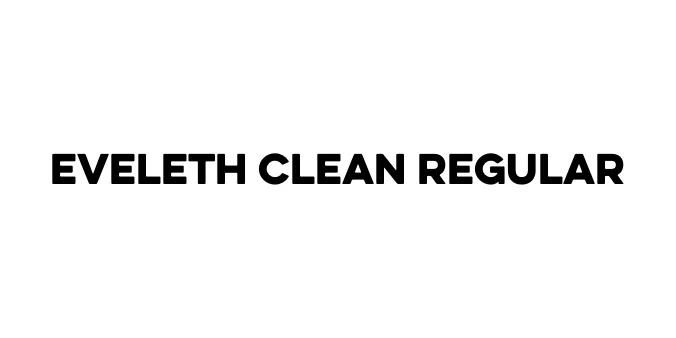
Eveleth Clean Regular
Designed by Ryan Martinson
Eveleth Clean Regular is a polished and refined version of the high-resolution letterpress font family created by Ryan Martinson of Yellow Design Studio. While the original Eveleth family is celebrated for its authentic distressed textures, the 'Clean' weight offers smooth, sharp edges that provide a crisp alternative for designers. It maintains the same bold, vintage proportions and industrial aesthetic but trades weathered charm for modern clarity and professional sophistication.
This typeface functions exceptionally well in contemporary design environments where a touch of classic Americana or retro letterpress is desired without the ruggedness of a textured font. Its versatility is further enhanced by its clean lines, making it highly legible at various sizes. Whether used for high-end packaging or digital interface headlines, Eveleth Clean Regular stands out as a dependable and authoritative sans serif with a distinct historical soul.
Eveleth Clean Regular Best Uses
Perfect for creating strong, vintage-inspired brand identities that require clean execution.
Adds a premium, established industrial feel to product labels and containers.
High legibility and bold presence make it ideal for storefronts and event banners.
Commanding presence for magazine covers, editorial titles, and web banners.